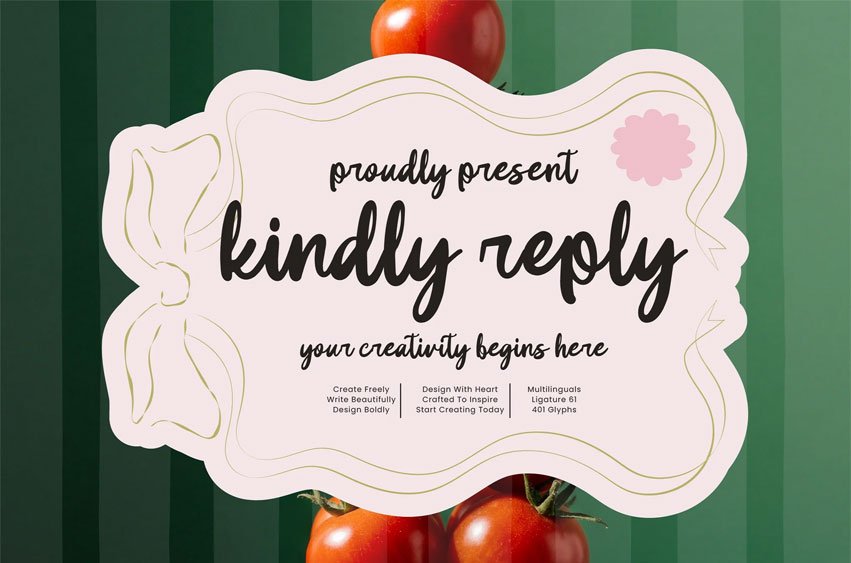
Kindly Reply Font is a whimsical handwritten font designed to capture the warmth, spontaneity, and charm of natural handwriting. Inspired by personal notes, journals, recipe cards, and creative stationery, Kindly Reply delivers a friendly and authentic personality while maintaining a clean and expressive handwritten style.
With flowing strokes, playful curves, and organic letter connections, this font is perfect for branding, packaging design, invitations, greeting cards, lifestyle visuals, social media content, journals, planners, and creative editorial layouts that need a personal yet polished touch.
Kindly Reply balances whimsical charm with natural handwriting flow, making it versatile for both decorative and professional creative projects.
- ✨ Whimsical Handwritten Style – Ideal for branding, packaging, invitations, stationery, journals, and lifestyle visuals
- ✨ Rich Stylistic Options – Includes extensive ligatures and alternates for expressive and unique typography
- ✨ Friendly & Organic Character – Natural handwritten rhythm with playful strokes and authentic personality
- ✨ Print & Digital Ready – Optimized outlines for consistent results across all media
- 🔡 OpenType Features: 61 Ligatures & 8 Alternates
- ✏️ Total Glyphs: 401 Characters
- 🌍 Multilingual Support
Kindly Reply is created for designers who want a whimsical handwritten font that feels warm, friendly, and naturally expressive—perfect for invitations, stationery, lifestyle branding, packaging, and creative storytelling.